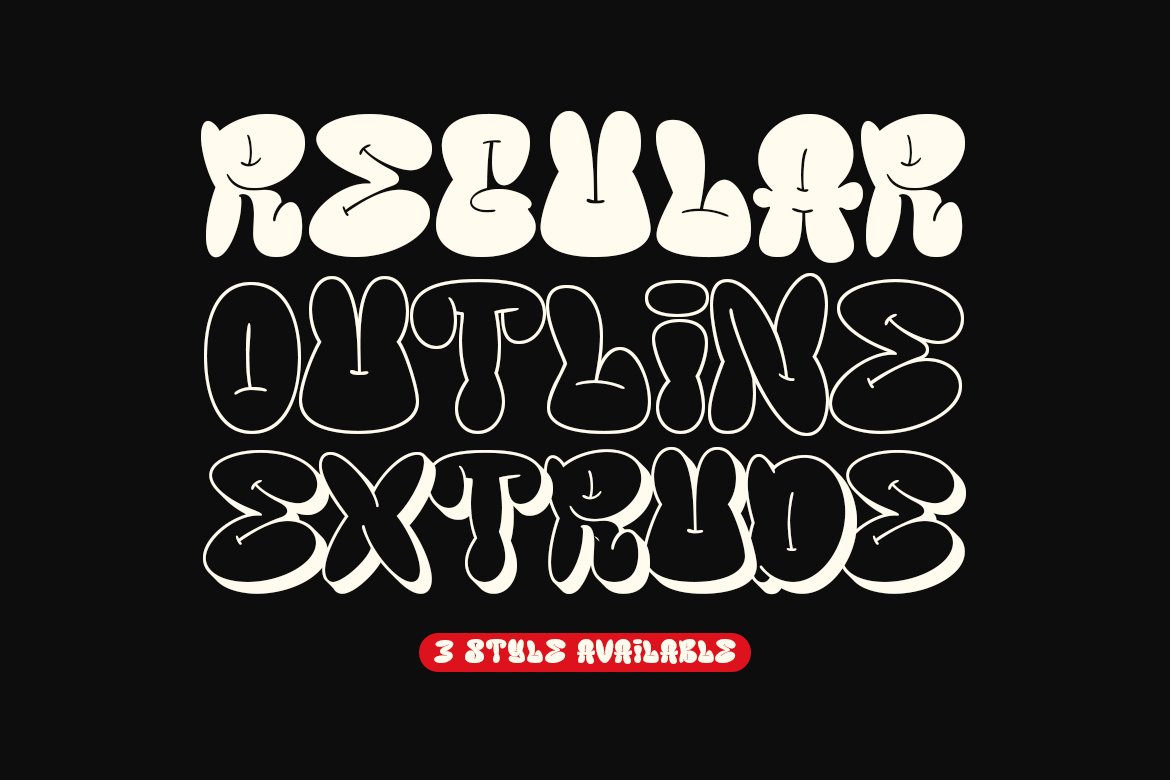
Groovy Bombs
Groovy Bombs Outline
Groovy Bombs Extrude
Groovy Bombs is an eye-catching bombing display font that effortlessly blends a groovy aesthetic with a touch of graffiti influence.
With its three distinct styles – regular, outline, and extrude – this font offers versatile options for creative use.
The casual style and retro feel of Groovy Bombs make it a perfect choice for projects that aim to evoke a sense of nostalgia and urban cool.
Whether used in posters, logos, or apparel designs, this font is sure to make a bold statement and leave a lasting impression.